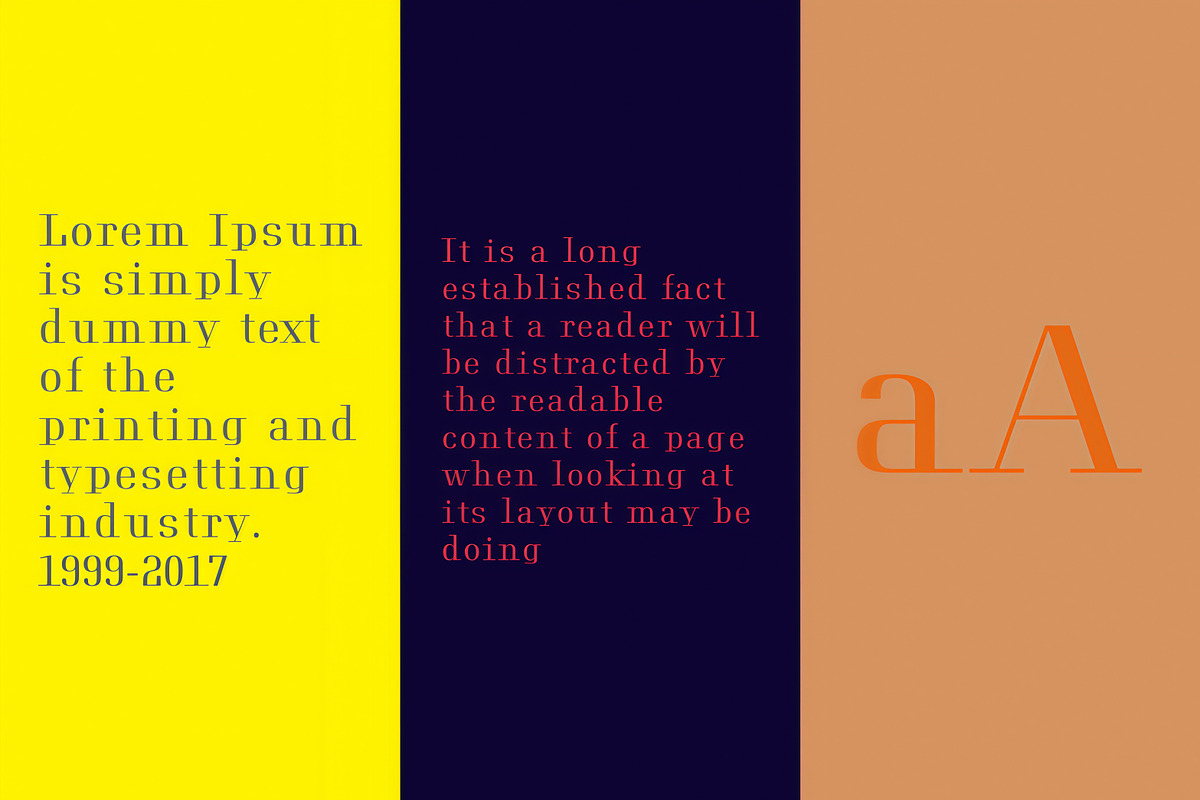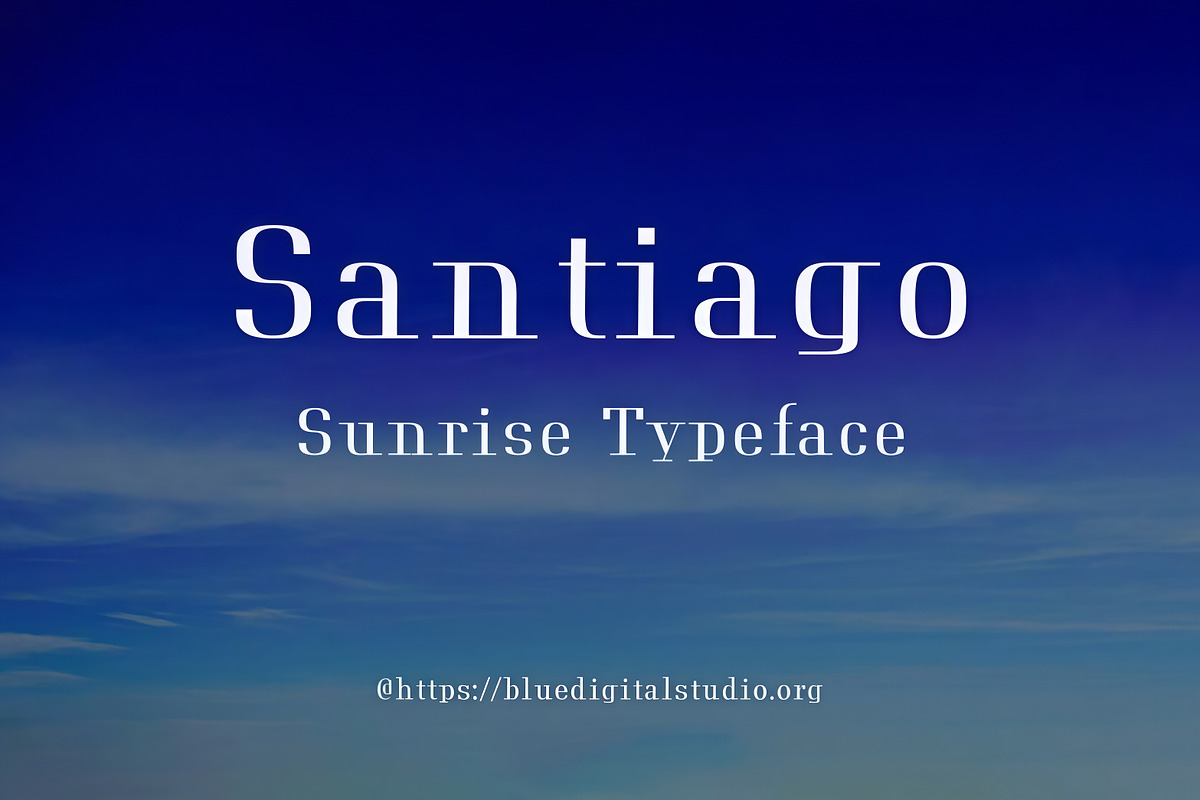
Santiago Sunrise Luxury Serif
Take your design work to the next level with Santiago Sunrise Serif, a distinctive display serif typeface that combines modern structure with a subtle vintage character. Designed for strong visual impact, this font works beautifully in headlines, titles, logos, and short-form typography where style and clarity matter most.
Santiago Sunrise Serif is a flexible choice for branding projects, advertising visuals, social media content, quote graphics, apparel designs, website headers, editorial layouts, invitations, packaging concepts, and professional marketing materials. Its refined details and balanced proportions make it suitable for both contemporary and classic design directions.
From fashion brands and digital campaigns to lifestyle content, wedding stationery, magazines, and premium product packaging, this typeface delivers a polished, elegant, and highly readable typographic solution.
- Complete Character Set: Uppercase, lowercase, numerals, punctuation, symbols, and essential glyphs
- Multilingual Support: Includes accented characters for international projects
- Versatile Applications: Ideal for logos, branding systems, headers, packaging, invitations, quotes, editorials, and layouts